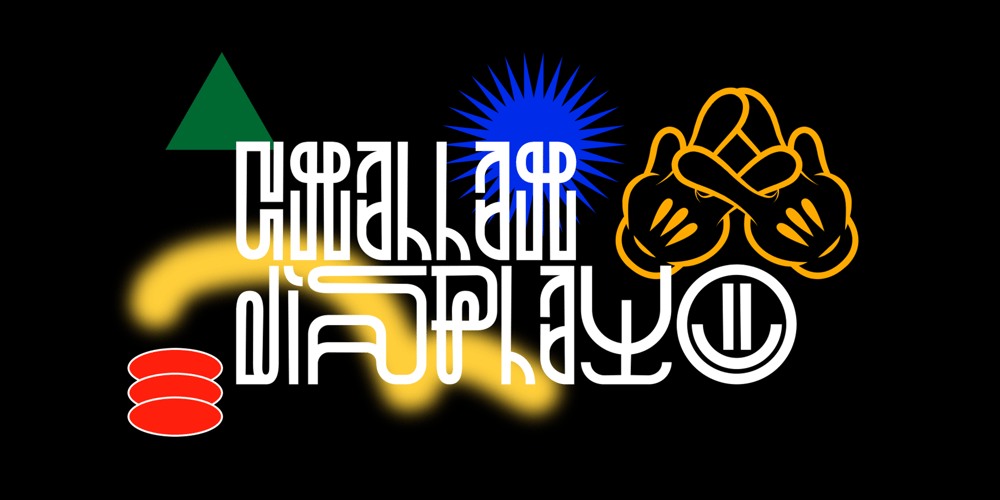
Challah Display Font Family was designed by Konrad Łukasiak and published by Typophobia. Challah Display contains 1 styles and family package options. Challah is a display font containing 295 glyphs.Letters are very diverse, but because they contain several shapes characteristic for each other – they retain a certain coherence.When creating the font, the main inspiration was to take from the Brazilian graffiti trend – Pichação and Korean typography.Most of the letters are the same size and width, however, when designing, we also tried to include at certain moments small “surprises” that will surely interest and surprise the user of the above-mentioned typeface.The font fits very well into the urban structure, therefore it perfectly matches the art on the walls with the art on the billboards, creating a kind of dialogue.